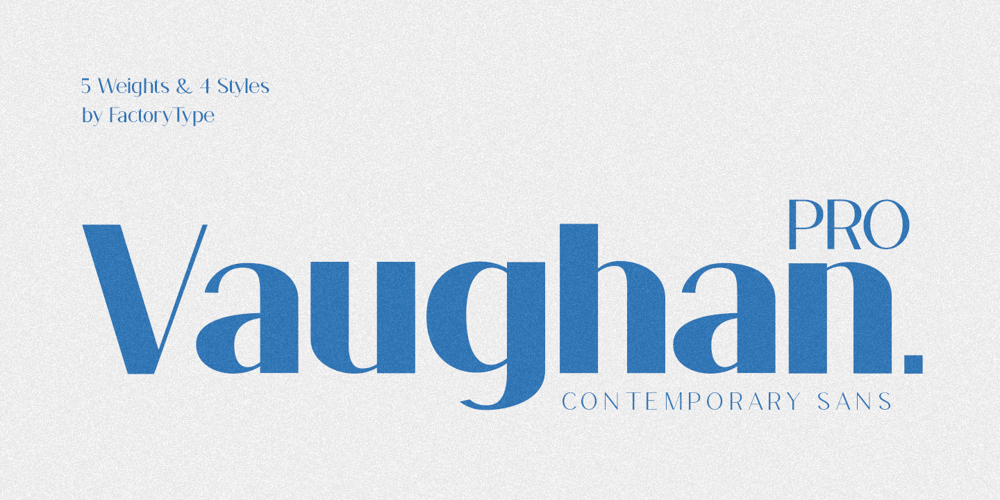
Vaughan Pro Font Family was designed by Wahyu Rahmawan and published by Factory738. Vaughan Pro contains 20 styles and family package options. Vaughan is a contemporary and minimalist sans serif font family. The different weights offer a variety of options to help you find the best typographic color for your project. This is an unrivaled sans serif for varying your headlines, branding visual identity, poster, logo, magazines, and so on. 5 Weights (Light, Regular, Semibold, Bold, Black) 4 Styles (Regular, Oblique, Italic, All Caps) Basic Latin A-Z and a-z Numbers & Punctuation Ligatures Multilingual Support for ä ö ü Ä Ö Ü … Free updates and feature additions Thanks for looking, and I hope you enjoy it.